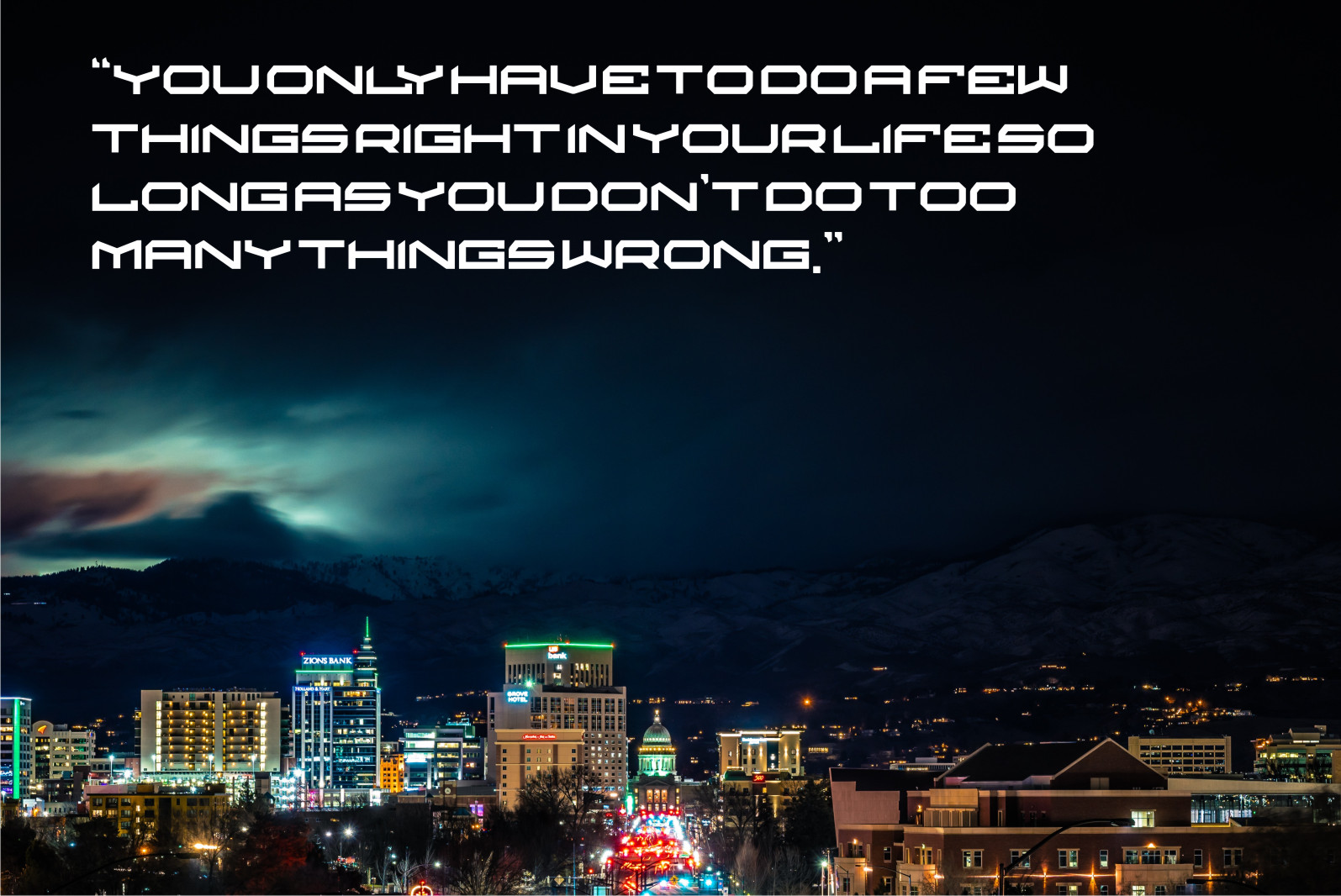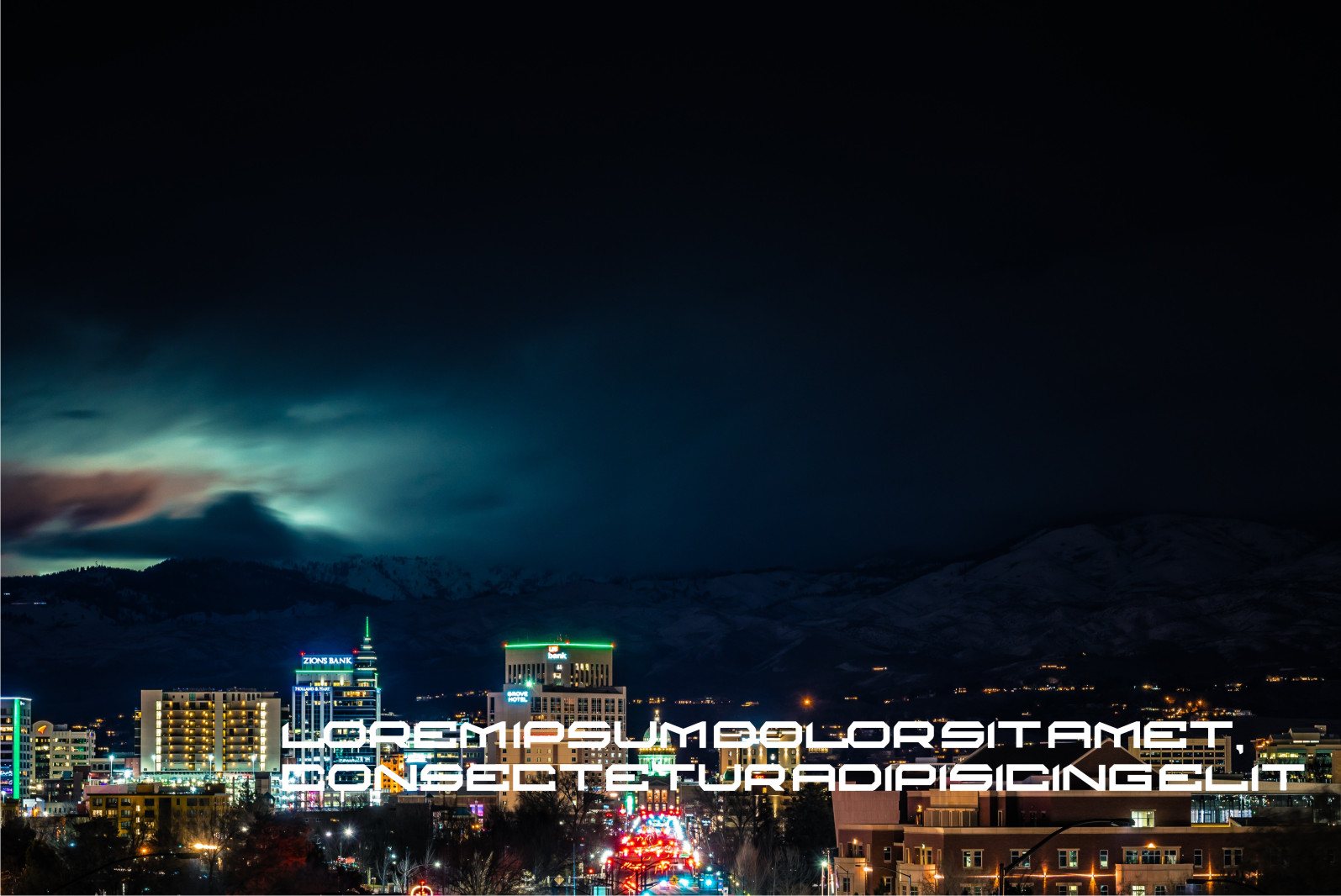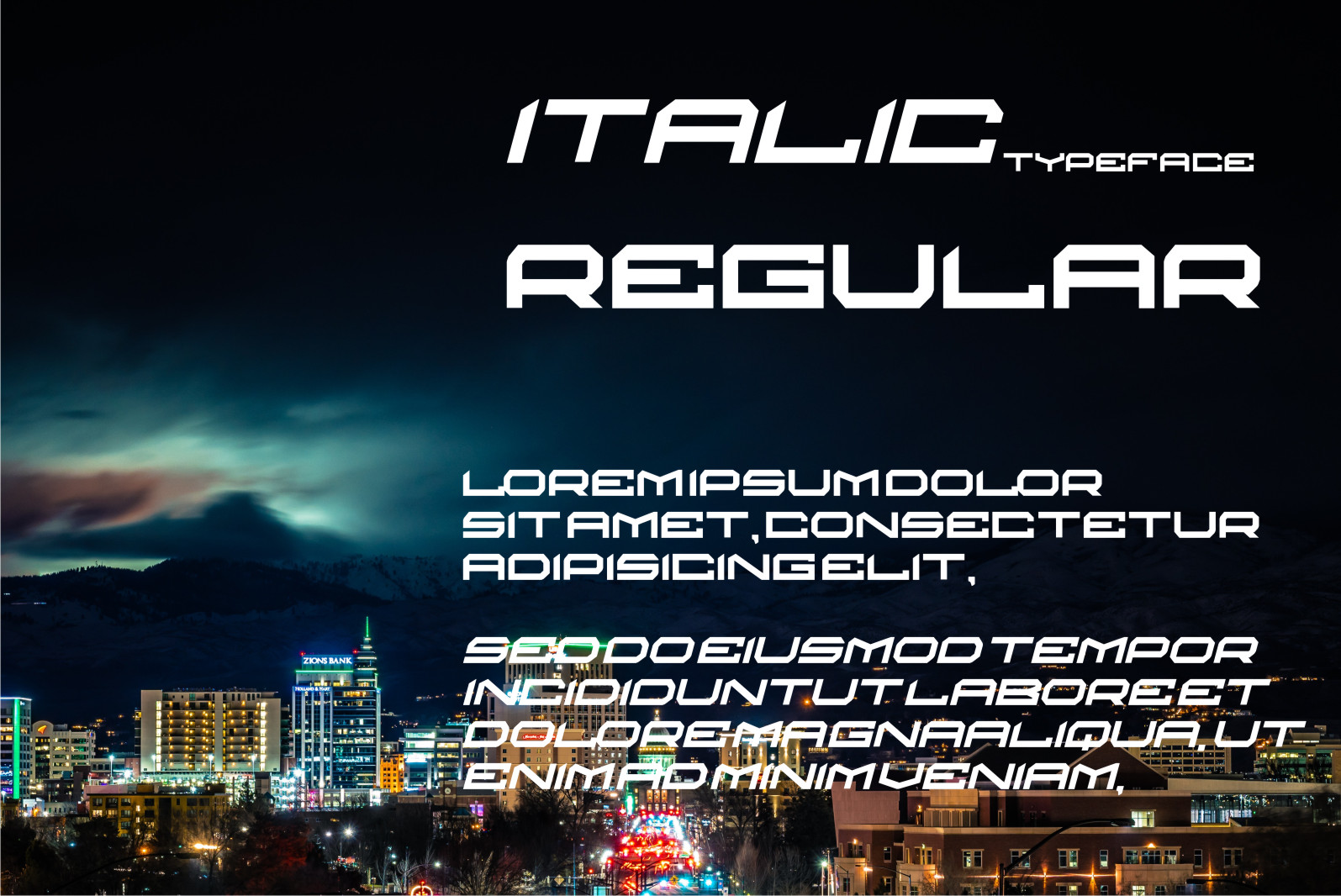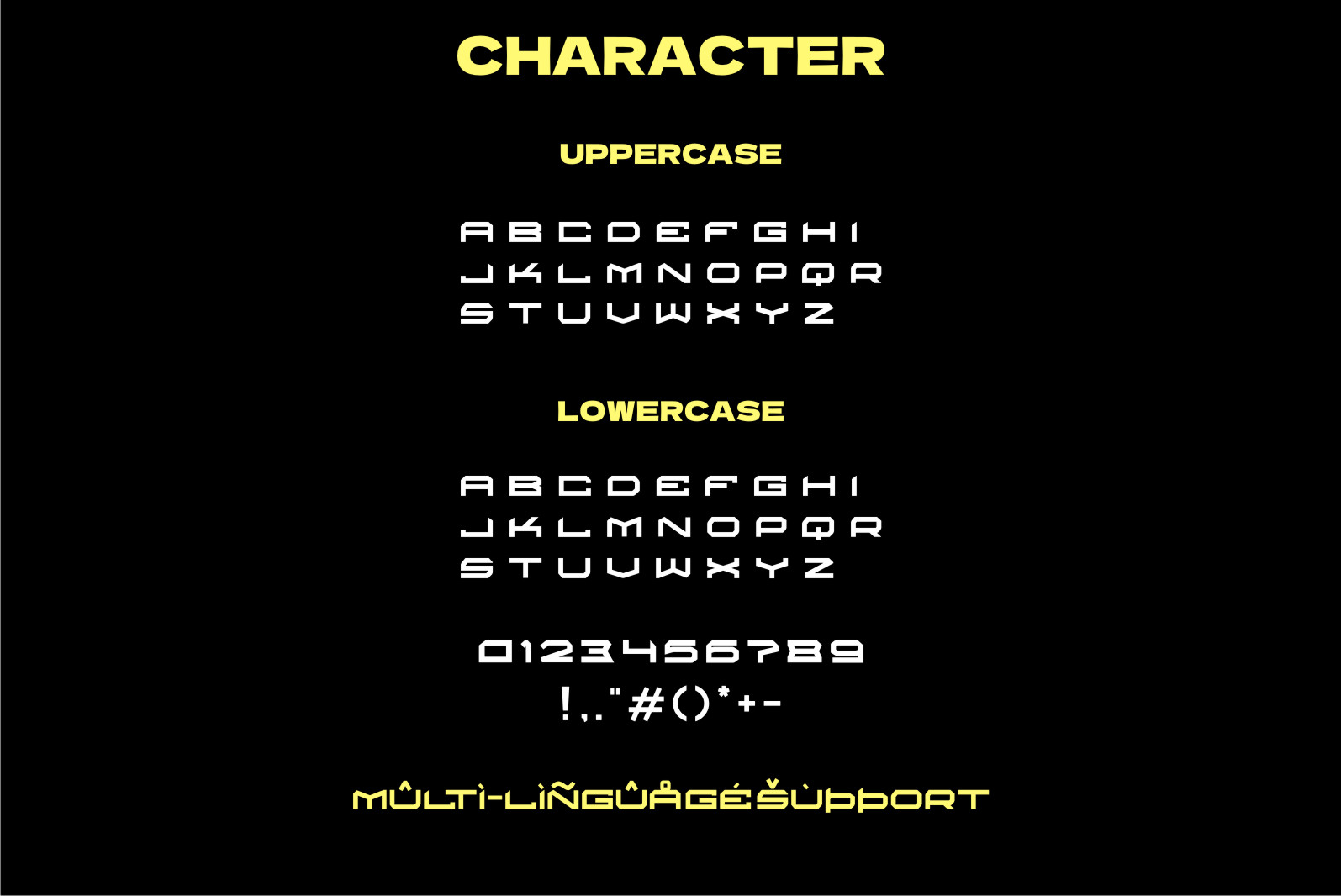
Esgras Font
Esgras Font is a modern and robotic-styled display font. This font is ideal for writing web designs, business cards, or pretty much anything else that requires a futuristic touch.